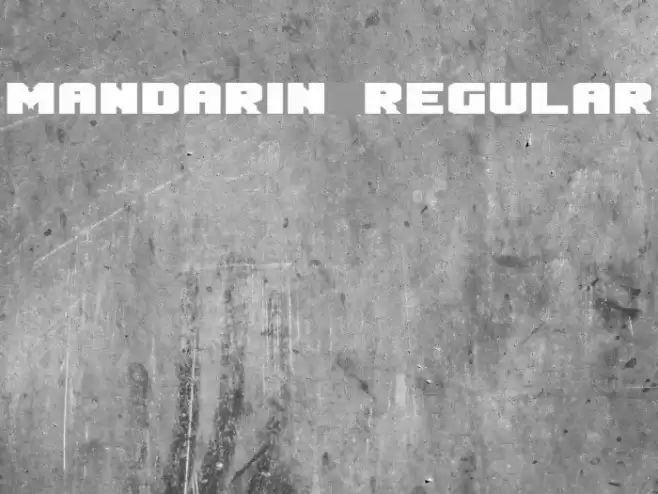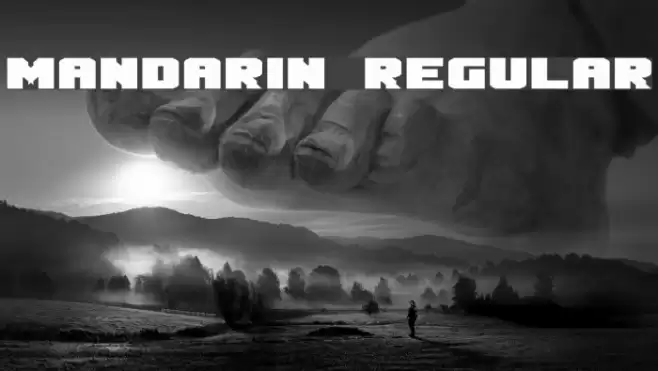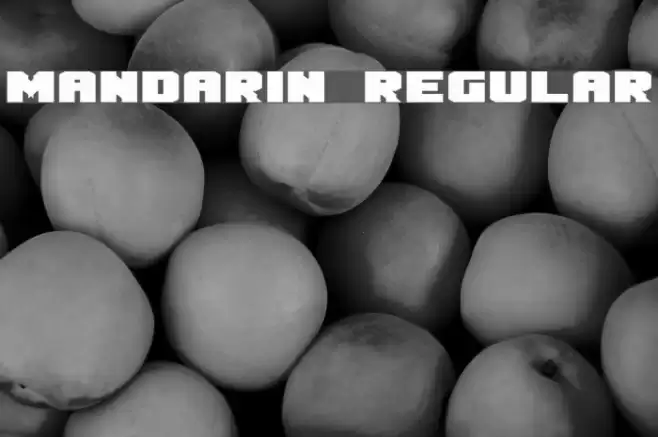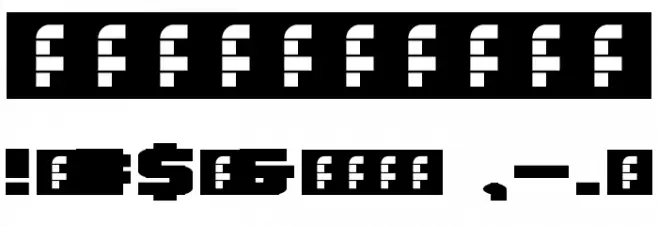
Mandarin Regular Font
Mandarin Regular Description
This font features a bold, geometric design with a strong presence. Each character is constructed with thick, block-like shapes, giving it a robust and sturdy appearance. The uppercase letters are uniform in height, while the lowercase letters maintain a consistent style, ensuring readability. The numbers and special characters follow the same bold, angular design, making them stand out. The overall style is modern and industrial, suitable for projects that require a strong visual impact.
A bold, geometric font with a modern, industrial style from Uncategorized fonts.
- Proposed Projects: Ideal for posters, headlines, logos, and branding materials that require a strong, impactful look.
- Overall Style: Modern, Industrial